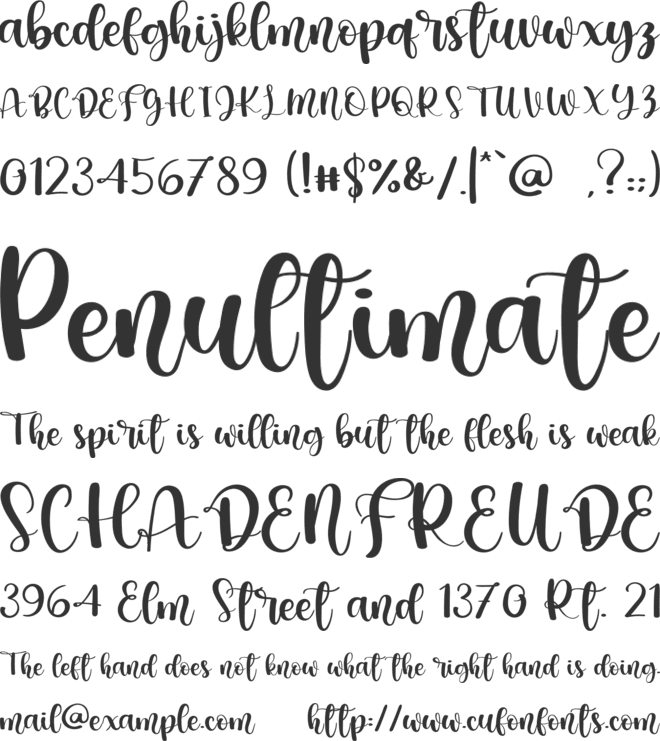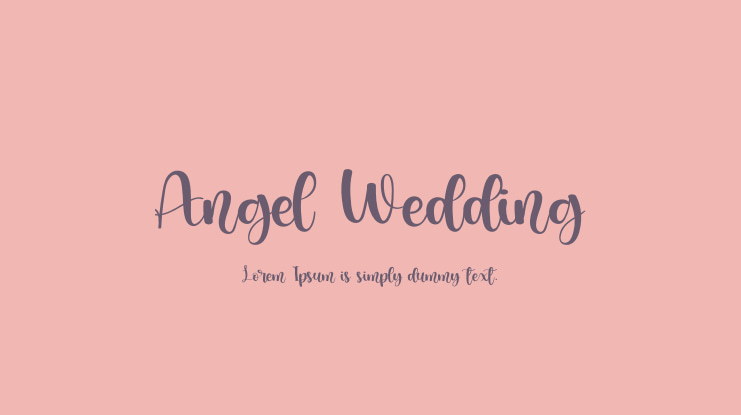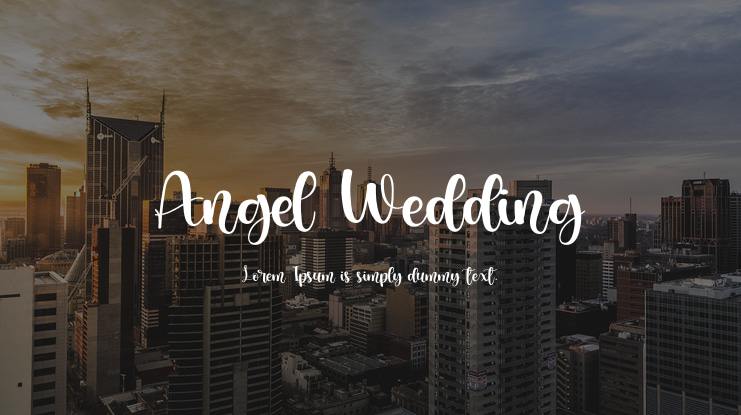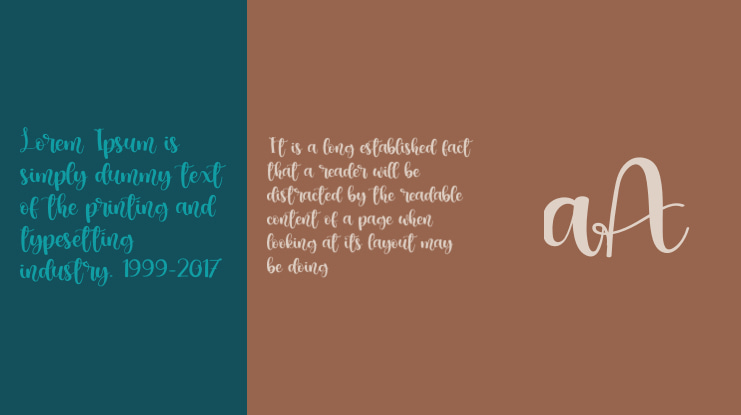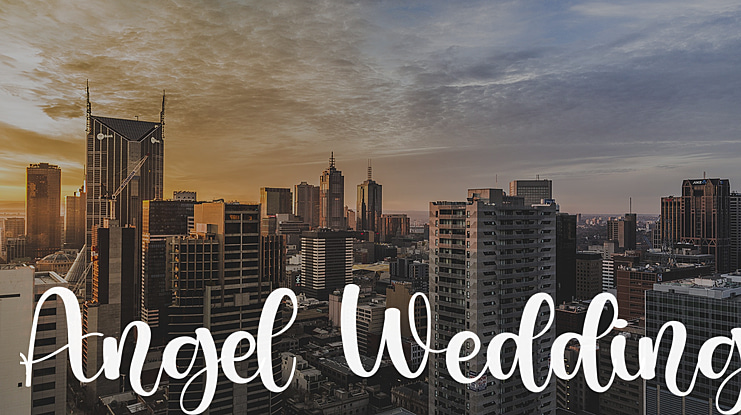
Angel Wedding Font
Angel Wedding is a fashionable script font. It is neatly crafted and highly detailed. Whatever the topic, Angel Wedding will be a wonderful asset to your font library, as it has the potential to enhance any creation.